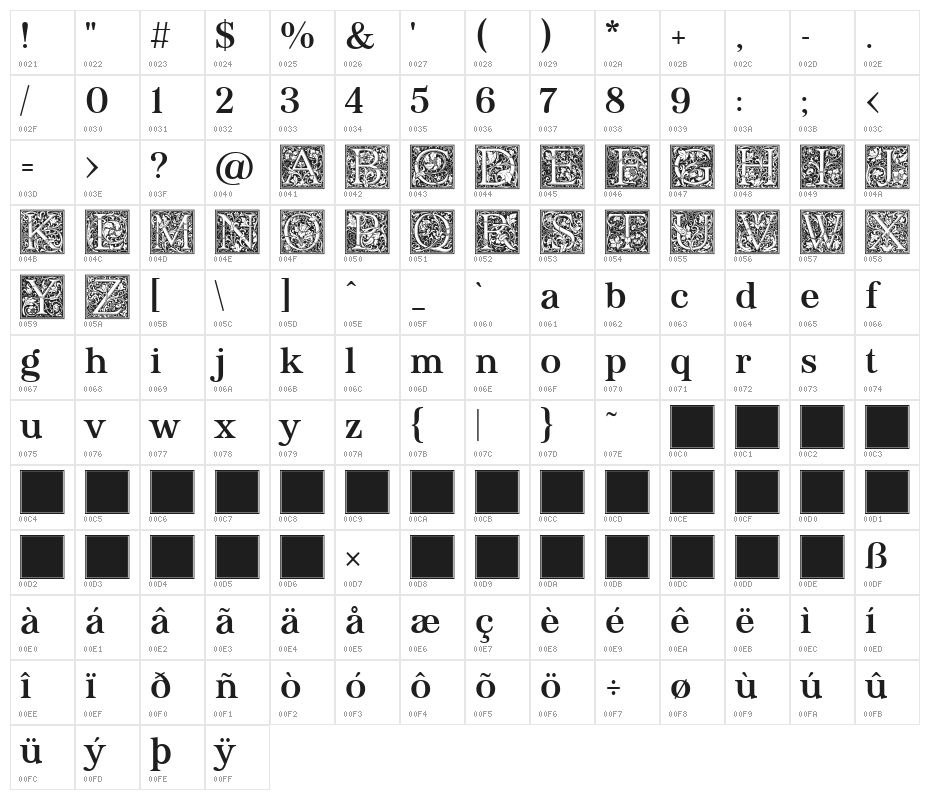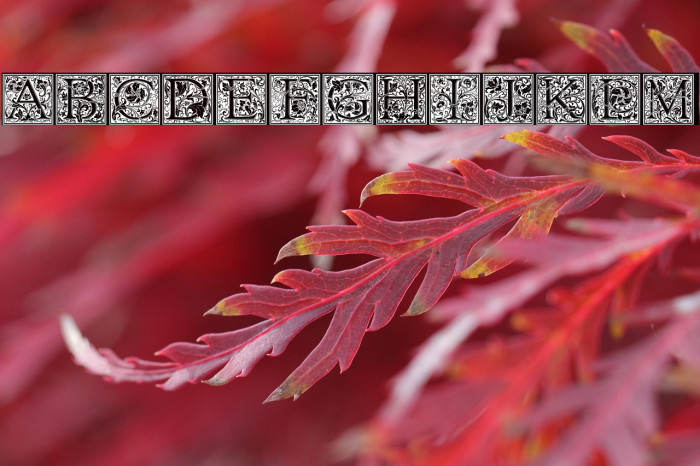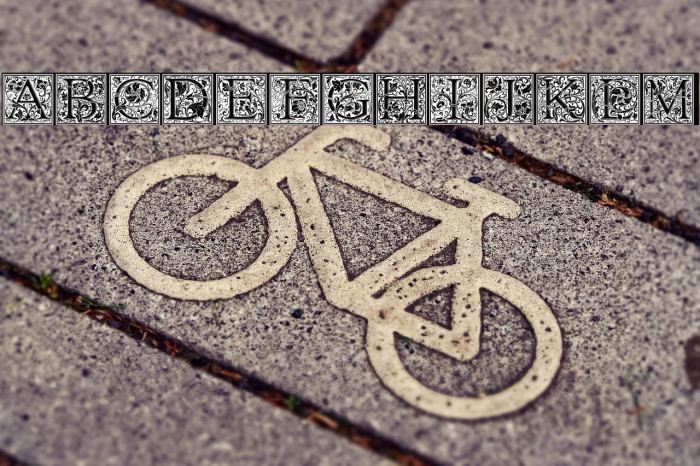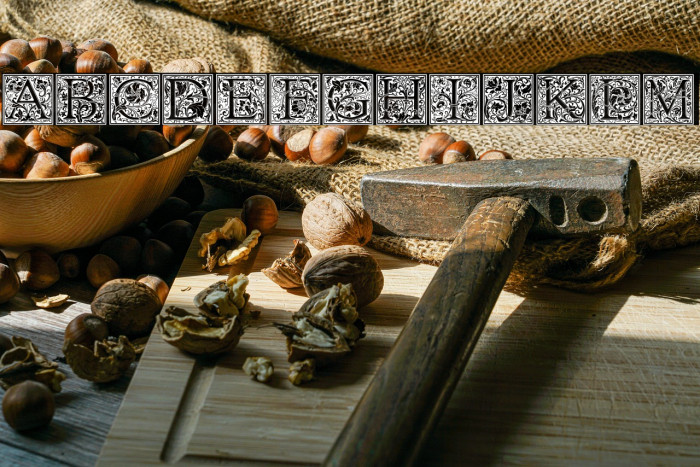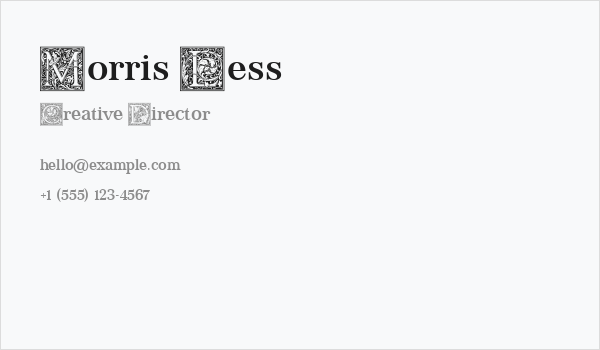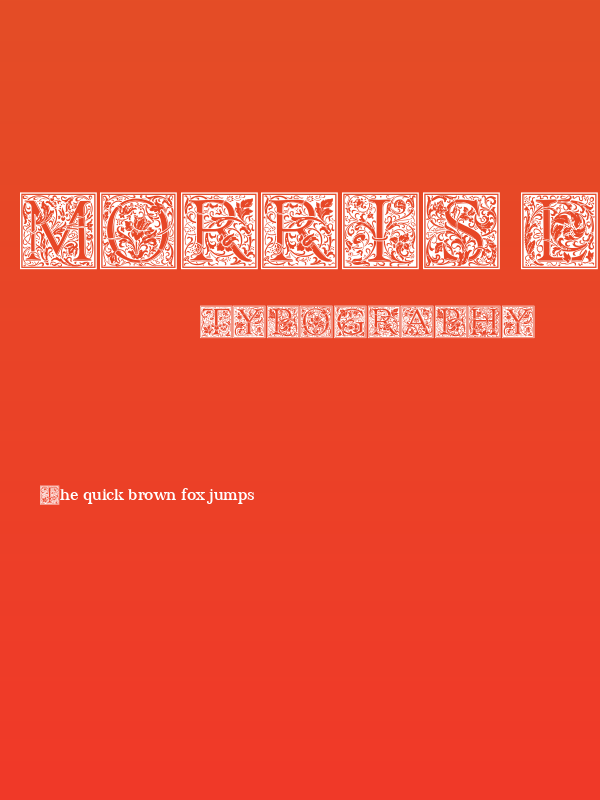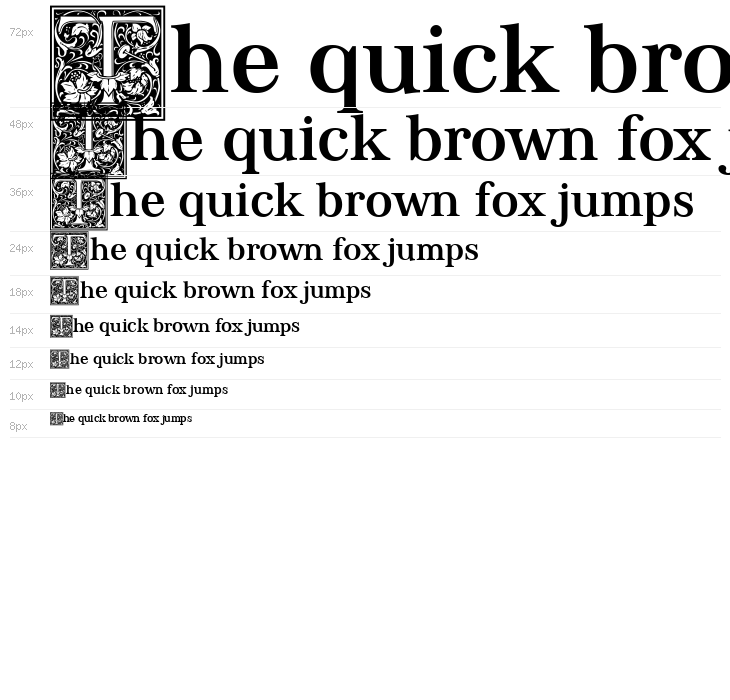
Morris Less Font
This font features an intricate and decorative style, especially evident in the uppercase letters, which are enclosed in ornate boxes with floral and vine motifs. The lowercase letters and numbers are more traditional, with a classic serif design that offers a strong and authoritative presence. The contrast between the decorative uppercase and the more straightforward lowercase creates a unique aesthetic that is both elegant and bold. This font is ideal for projects that require a touch of sophistication and historical charm, making it suitable for invitations, book covers, and branding that seeks to convey a sense of tradition and refinement.
| Overall Style | Vintage |
| Proposed Projects | Perfect for wedding invitations, historical book covers, luxury branding, and decorative signage. |